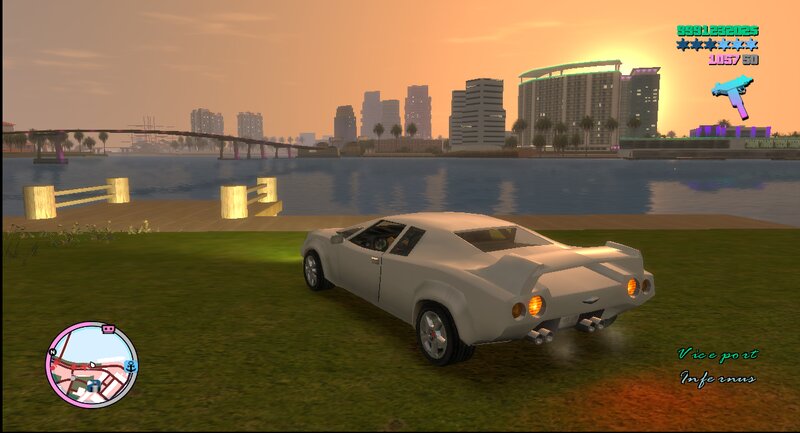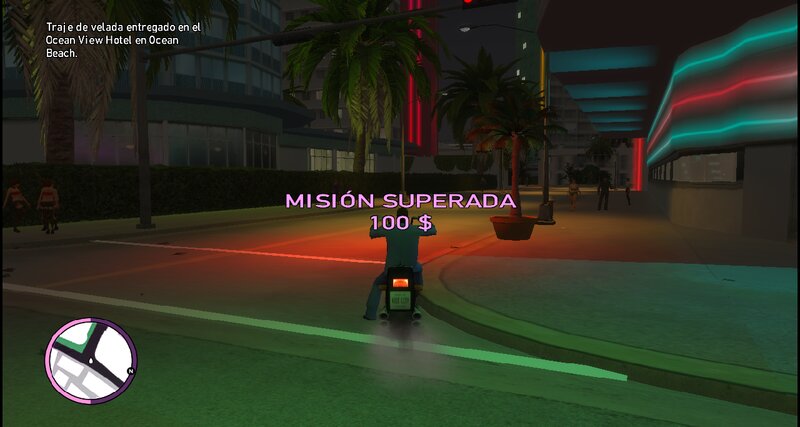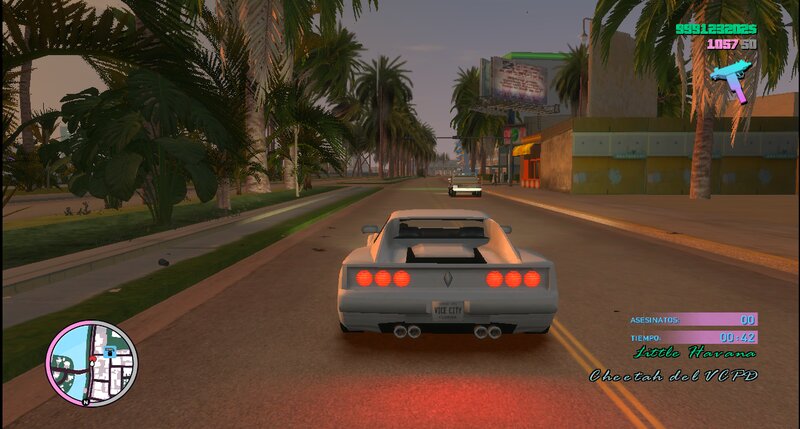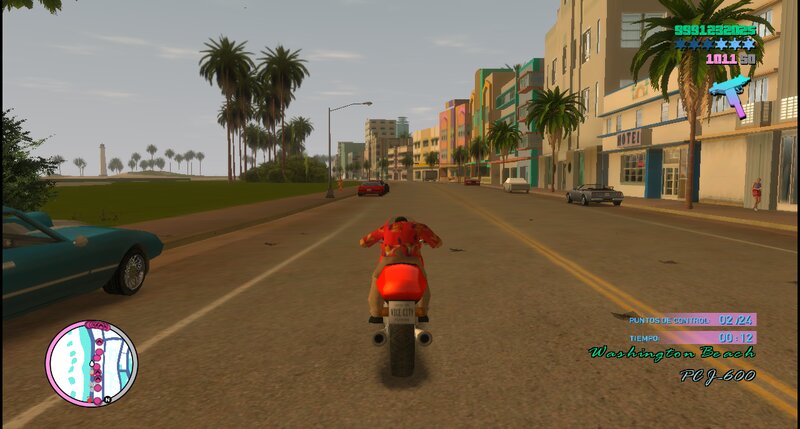
With this mod you will get fonts from the original GTA Vice City, as well as several fixes compared to the previous version.
Features of the mod:
Fixed the size of some letters and numbers — now they do not merge and read more clearly.
Added a shadow behind the money and ammo numbers like in the original Vice City — improved visibility.
Pathfinder stars are now colored blue like they were in Vice City on consoles.
Con este mod, obtendrás las fuentes del GTA Vice City original, además de varias correcciones respecto a la versión anterior.
Características del mod:
Se ha corregido el tamaño de algunas letras y números; ahora no se fusionan y se leen con mayor claridad.
Se ha añadido una sombra detrás de los números de dinero y munición, como en el Vice City original, para una mejor visibilidad.
Las estrellas de busqueda ahora son de color azul, como en Vice City para consolas.